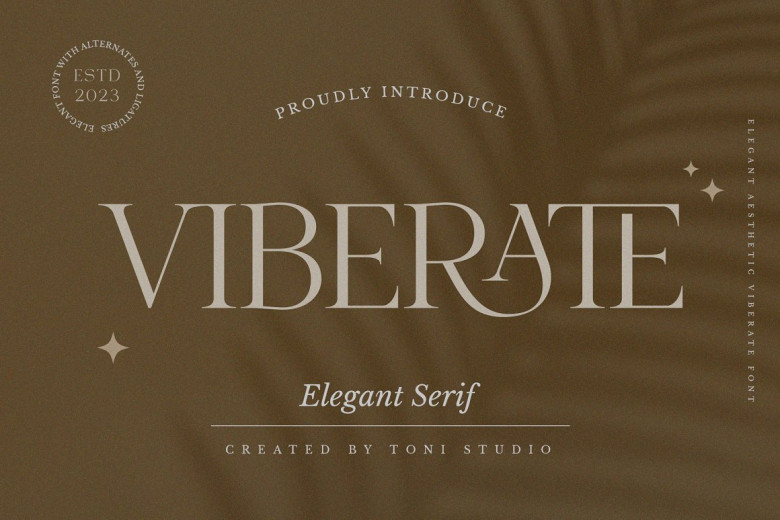
Viberate Font
Viberate is an innovative modern Ligature serif typeface developed and designed by ToniStudio. With soft curves combined with high contrast glyphs, Viberate creates a feminine yet masculine appeal while its clean lines and sleek serif create the ideal blend of traditional and modern styles.
A balanced font layout enables maximum versatility for titles, logos, magazines and many other projects – ideal for titles, logos and magazines among many more creative endeavors!
Viberate Serif Font